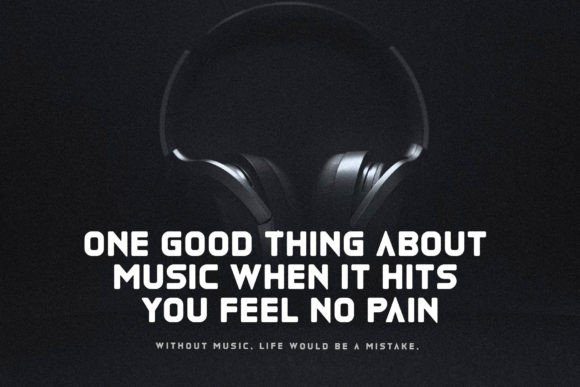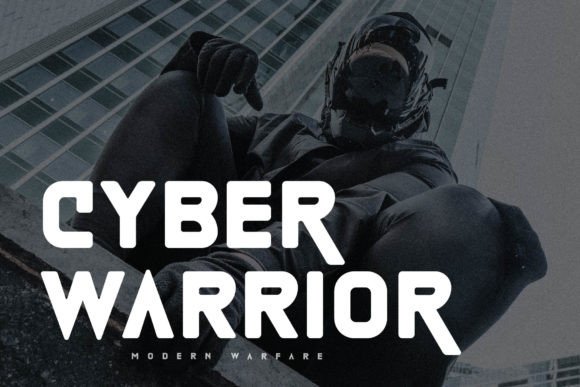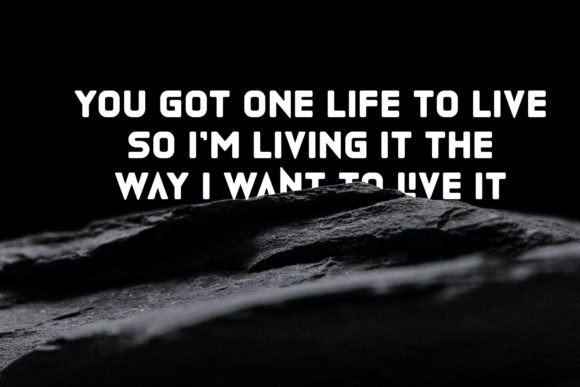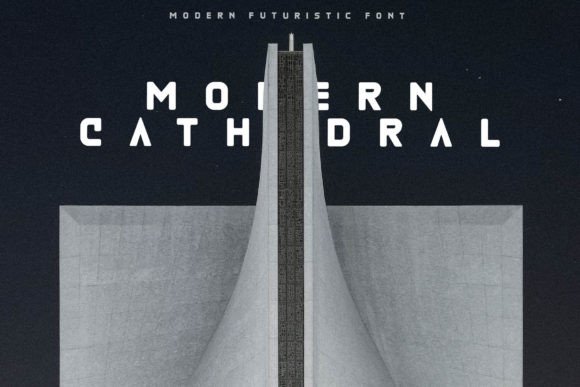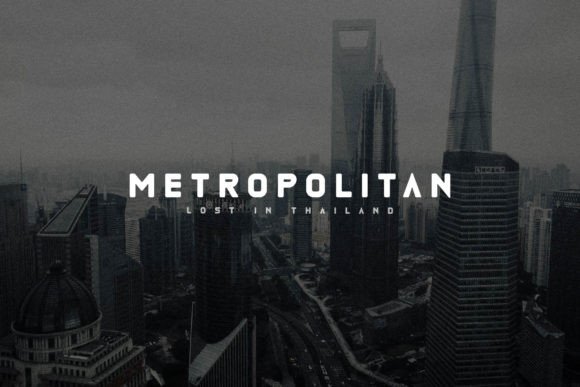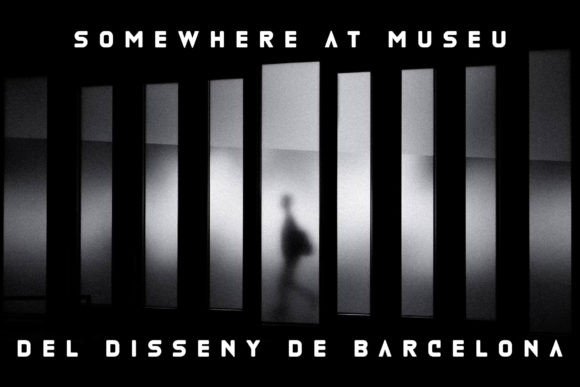
Brock Restar Font: Elevate Your Designs with a Touch of Elegance
In the world of typography, a font can make or break a design. For designers and crafters looking to add a dash of sophistication and luxury to their projects, the Brock Restar Font is an excellent choice. This modern and classic display typeface boasts a unique style and fashionable look, making it perfect for a wide range of applications.
The Versatility of Brock Restar Font
Brock Restar Font is a versatile typeface that can be used in various design projects, including:
- Elegant and luxurious logos
- Book or movie title designs
- Fashion brand identities
- Magazines and editorials
- Clothing and apparel designs
- Lettering and quotes
Whether you’re working on a high-end fashion brand or a literary masterpiece, Brock Restar Font is sure to elevate your design to the next level.
What Sets Brock Restar Font Apart
So, what makes Brock Restar Font stand out from the crowd? Here are a few key features:
- Unique Style: Brock Restar Font has a distinct and fashionable look that’s sure to turn heads.
- Modern and Classic: This typeface seamlessly blends modern and classic elements, making it perfect for designers who want to create a timeless look.
- High Versatility: Brock Restar Font can be used in a wide range of design projects, from elegant logos to stylish lettering.
Why Designers and Crafters Love Brock Restar Font
Designers and crafters love Brock Restar Font for several reasons:
- Ease of Use: This font is incredibly easy to use, making it perfect for designers of all skill levels.
- Customization: Brock Restar Font can be easily customized to fit your design needs, ensuring that your project stands out from the crowd.
- Timeless Look: This typeface has a timeless quality that ensures your design will remain stylish for years to come.
How to Use Brock Restar Font in Your Designs
Using Brock Restar Font in your designs is easy. Here are a few tips to get you started:
- Pair it with Other Fonts: Brock Restar Font pairs well with other fonts, making it easy to create a unique and stylish design.
- Experiment with Sizes: This font looks great in a variety of sizes, from large headings to smaller body text.
- Play with Colors: Brock Restar Font can be used in a range of colors, from classic black and white to bold and bright hues.
In conclusion, Brock Restar Font is a versatile and stylish typeface that’s perfect for designers and crafters looking to add a touch of elegance to their projects. With its unique style, modern and classic look, and high versatility, this font is sure to become a staple in your design toolkit. So why wait? Download Brock Restar Font today and start elevating your designs to the next level.
Whether you’re a seasoned designer or just starting out, Brock Restar Font is an excellent choice for any design project. Its timeless quality, ease of use, and customization options make it a valuable asset for anyone looking to create stunning designs.